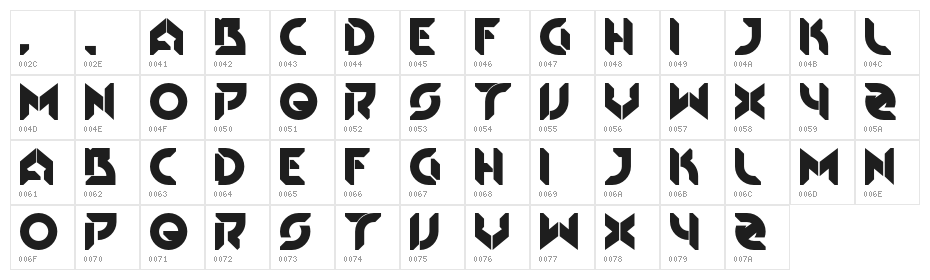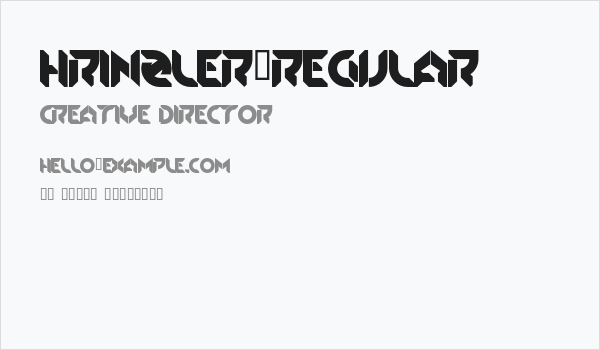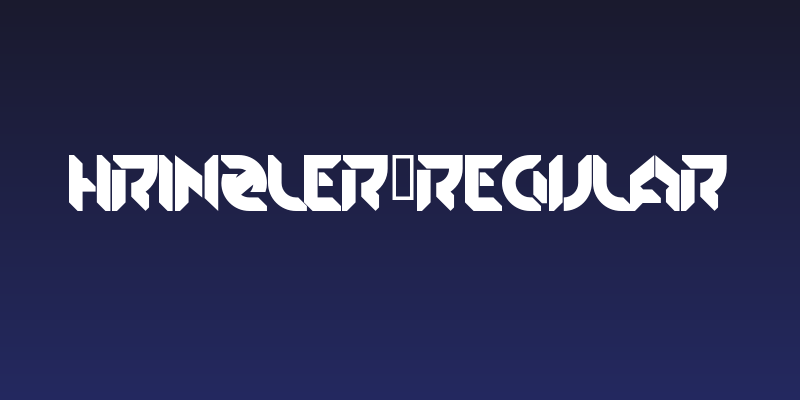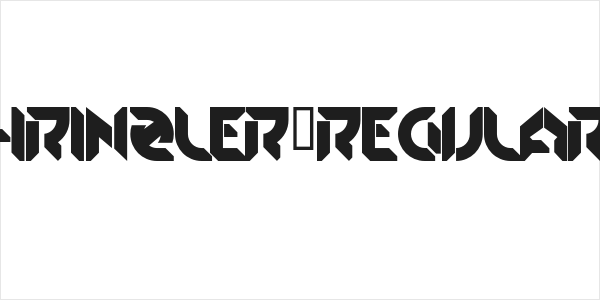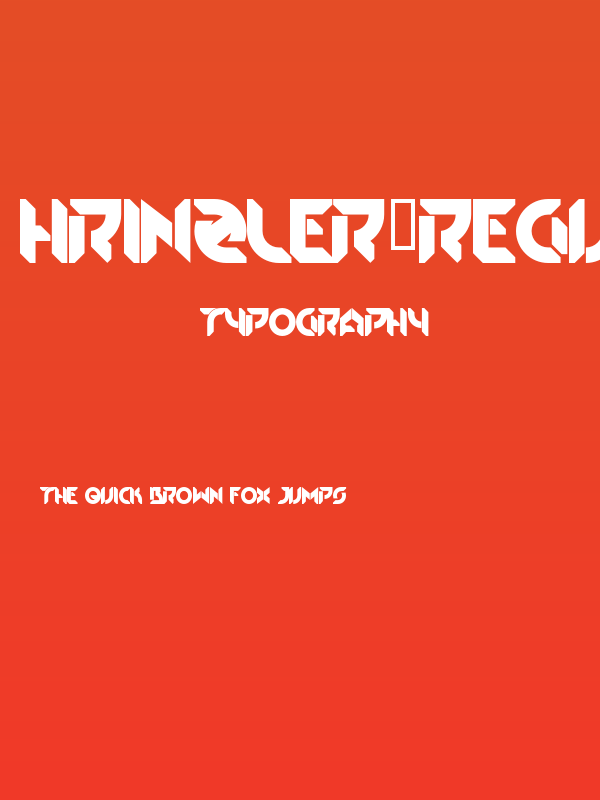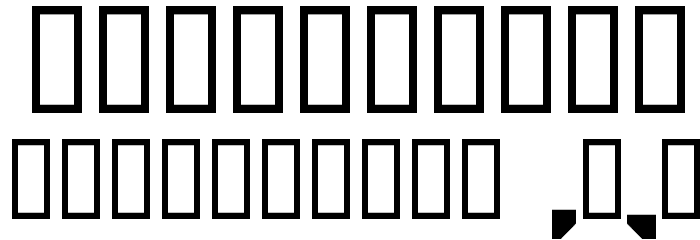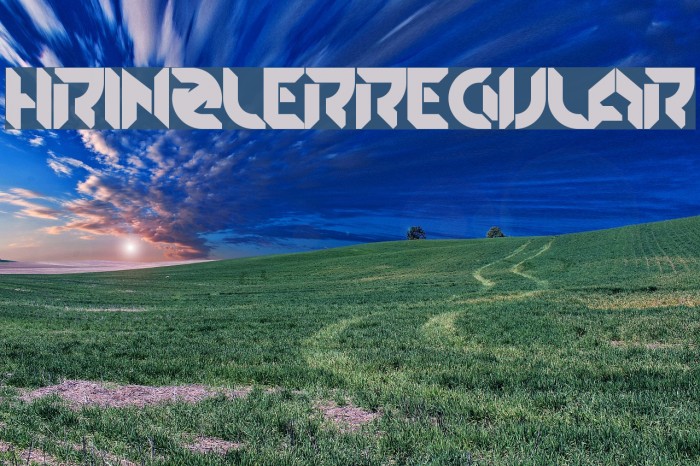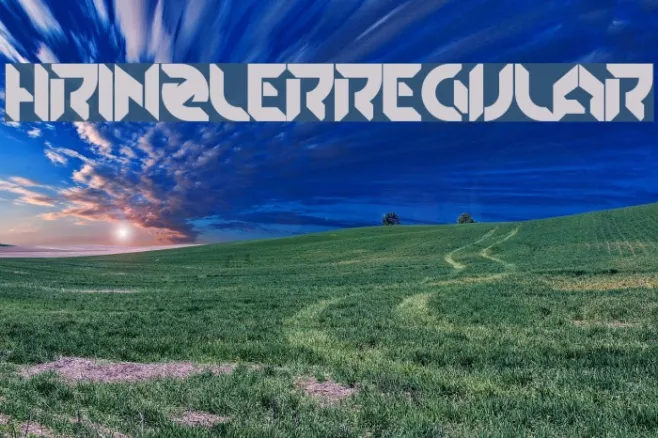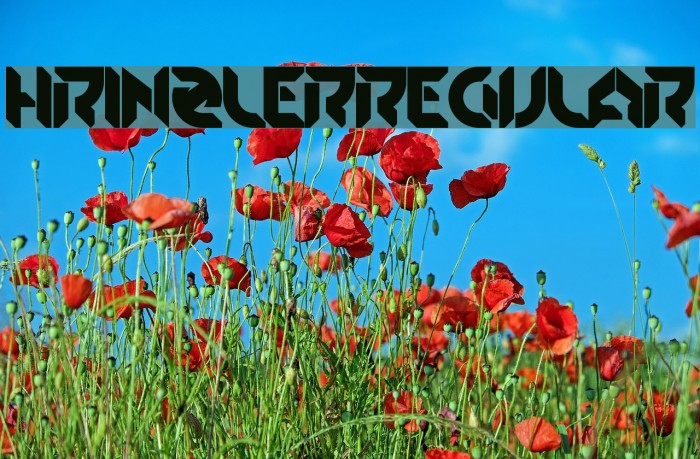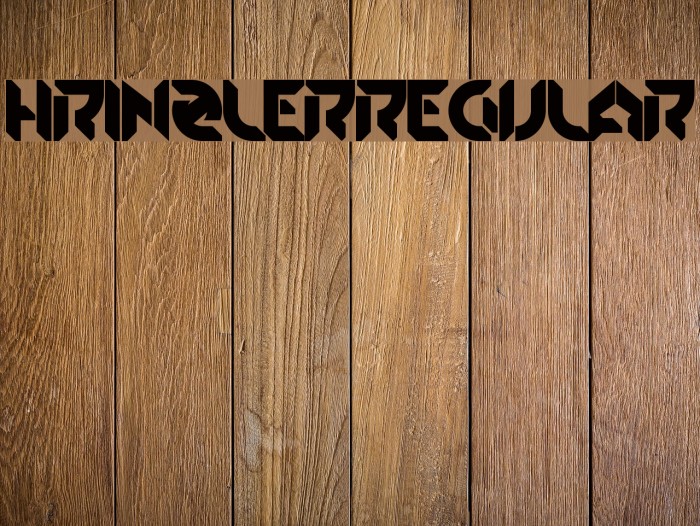
HRinzler-Regular Font
HRinzler-Regular Description
This font features a bold, geometric design with sharp angles and a futuristic aesthetic. The characters are constructed with a combination of thick and thin strokes, creating a high contrast that enhances its modern appeal. The uppercase letters are particularly striking, with a blocky, angular style that suggests a sense of strength and innovation. The lowercase letters maintain this geometric theme, offering a cohesive look across the typeface. The numbers and special characters are designed to match the boldness and angularity of the alphabet, ensuring consistency throughout. This font is ideal for projects that require a modern, edgy look, such as technology branding, sci-fi themed designs, or any creative work that seeks to make a bold statement.
HRINZLER-REGULAR UPPERCASE
HRINZLER-REGULAR LOWERCASE
HRINZLER-REGULAR OTHER CHARS
| Use Case | Logos, Headlines |
| Proposed Projects | Ideal for technology branding, sci-fi themed designs, and bold creative projects. |